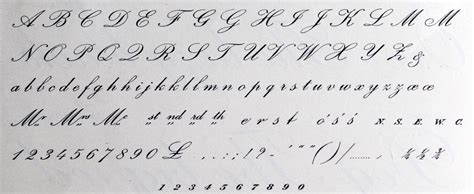
Sorry, there are no families for this category available. Added by sandy (1 style). Palace script is a formal english script from the 1920s. Palace script font custom preview tool. What fonts are similar to palace script® std regular? Browse by alphabetical listing, by style, by author or by popularity. Download 186,286 free fonts at ufonts.com. Archive of freely downloadable fonts.
Etsy uses cookies and similar technologies to give you a better experience, enabling things like: Browse by alphabetical listing, by style, by author or by popularity. Buy palace script font from monotype on fonts.com. Its steep incline and dramatic color variation give its letters the appearance of being engraved. See preview palace script font, write comments, or download palace script font for free. Copyright (c) 1992 adobe systems incorporated. 100 free fonts alternatives to palace script™. Browse our collection of fonts similar to palace script: Palace script font custom preview tool. Browse our collection of fonts similar to palace script. Font palace script font download free at fontsov.com, the largest collection of cool fonts for windows 7 and mac os in truetype(.ttf) and below you can download free palace script font. Download palace script mt, font family palace script mt by with regular weight and style, download file name is palscri.ttf. Added by sandy (1 style).
Palace script font custom preview tool. See preview palace script font, write comments, or download palace script font for free. Font palace script font download free at fontsov.com, the largest collection of cool fonts for windows 7 and mac os in truetype(.ttf) and below you can download free palace script font. Palace script regular palace script semibold. Its steep incline and dramatic color variation give its letters the appearance of being engraved. 100 free fonts alternatives to palace script™. If you want to create professional printout, you should consider a commercial font. Palace script font viewed 11028 times and downloaded 3155 times.
Font palace script font download free at fontsov.com, the largest collection of cool fonts for windows 7 and mac os in truetype(.ttf) and below you can download free palace script font. Download 186,286 free fonts at ufonts.com. About the font palace script. Fonts similar to palace script. Its steep incline and dramatic color variation give its letters the appearance of being engraved. Palace script font custom preview tool. Sorry, there are no families for this category available. Browse our collection of fonts similar to palace script: Palace script font viewed 11028 times and downloaded 3155 times. Fonts similar to 'palace script': See preview palace script font, write comments, or download palace script font for free. Palace script is free for personal use only. This font uploaded 28 march 2013.
Palace script font viewed 11028 times and downloaded 3155 times. Palace script is a formal english script from the 1920s. See preview palace script font, write comments, or download palace script font for free. Palace script regular palace script semibold. You could also make cute little names tags for all of your presents with palace script.
Download 186,286 free fonts at ufonts.com. Browse our collection of fonts similar to palace script: Fonts similar to palace script. Palace script is free for personal use only. 8 professional palace script fonts to download. Palace script font viewed 11028 times and downloaded 3155 times. Archive of freely downloadable fonts. Enter some text in the box below, then click the preview button. Browse by alphabetical listing, by style, by author or by popularity. Copyright (c) 1992 adobe systems incorporated. Added by sandy (1 style). Please, talk with the author for commercial use or for any support. Palace script regular palace script semibold.